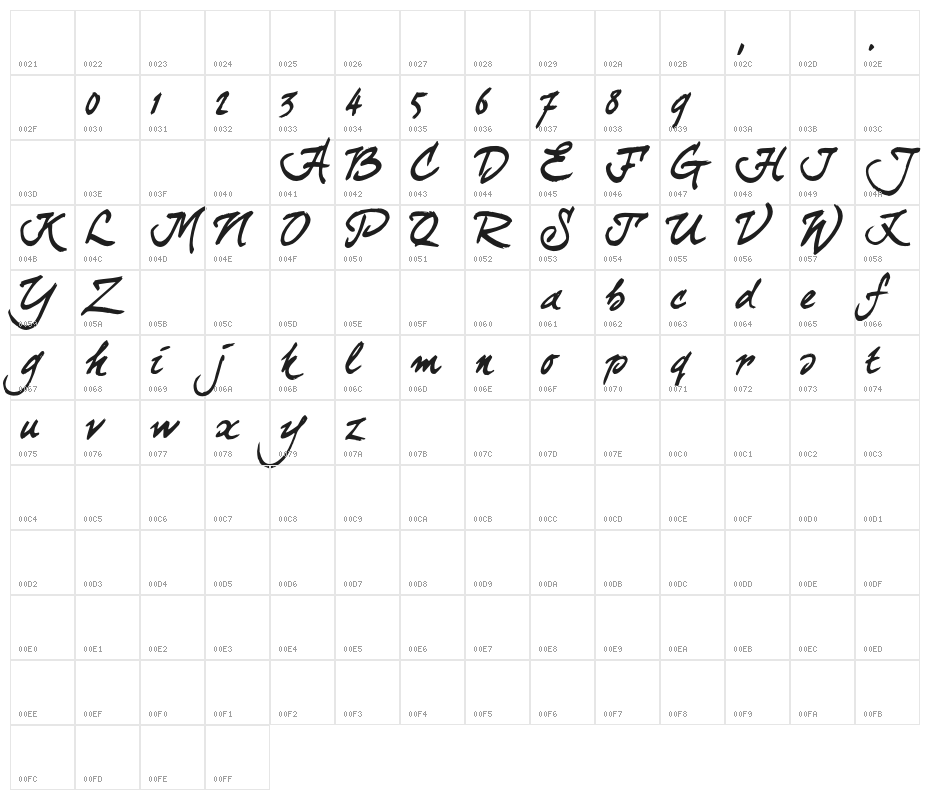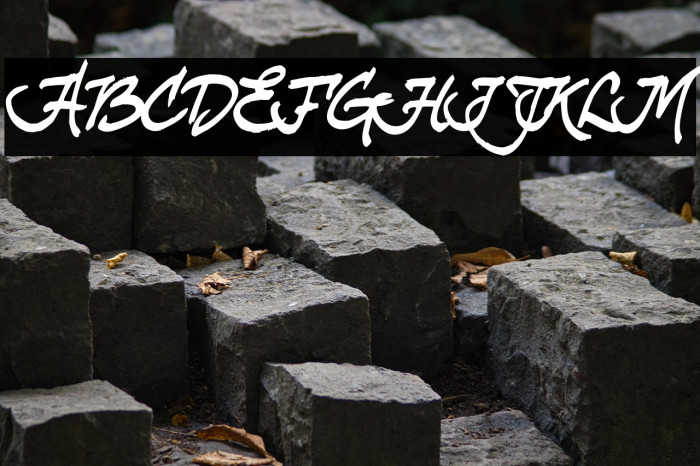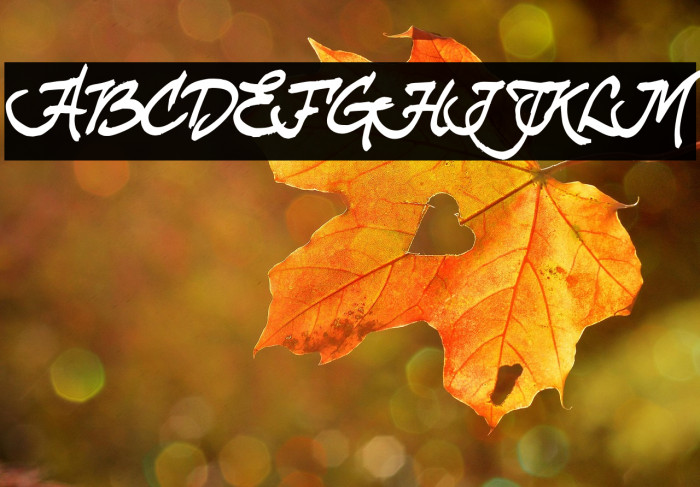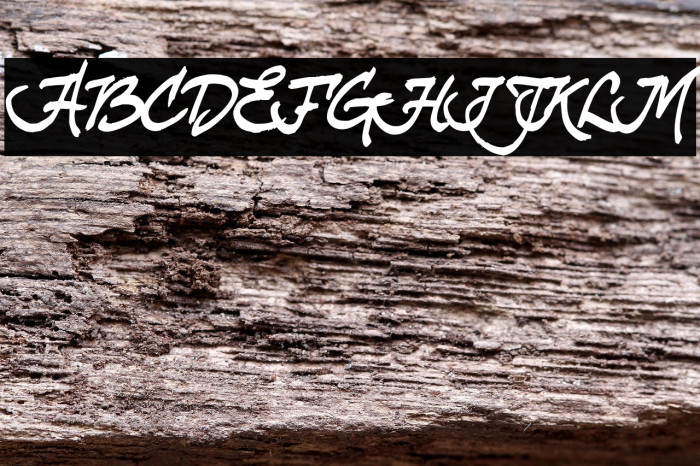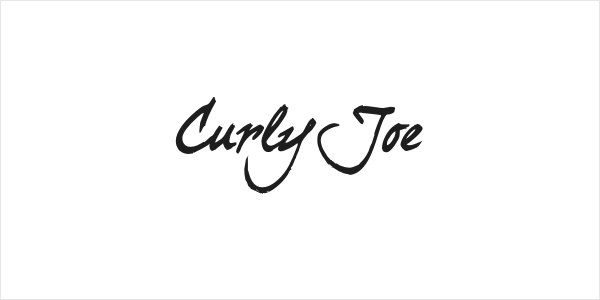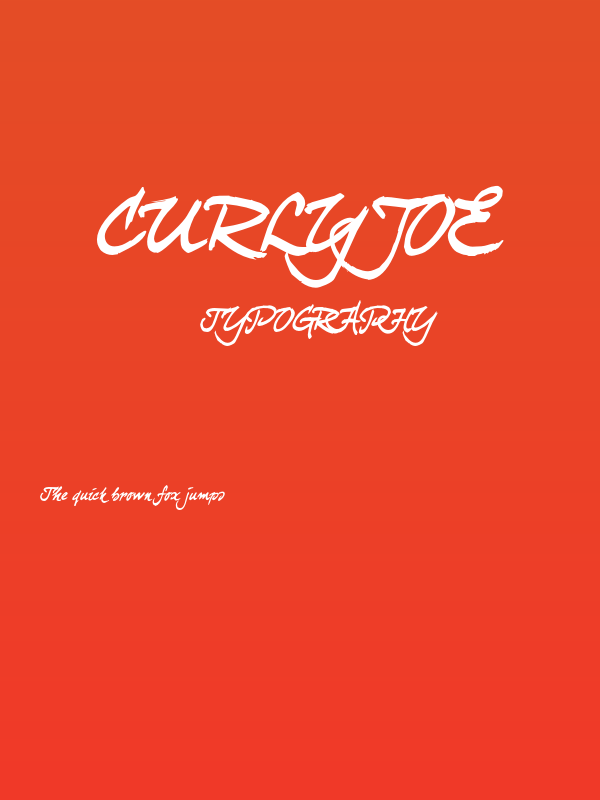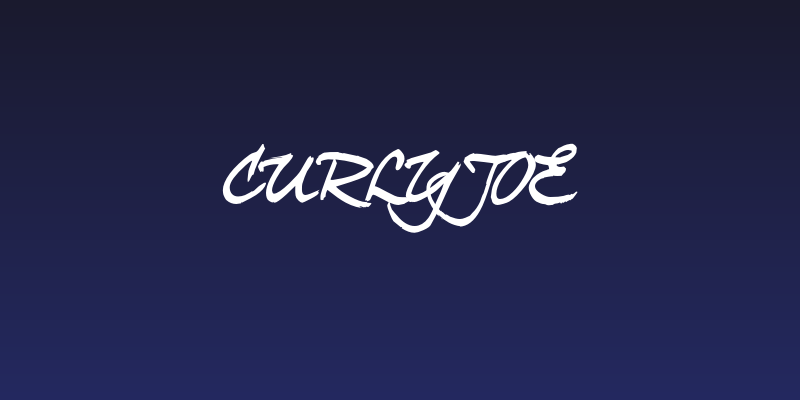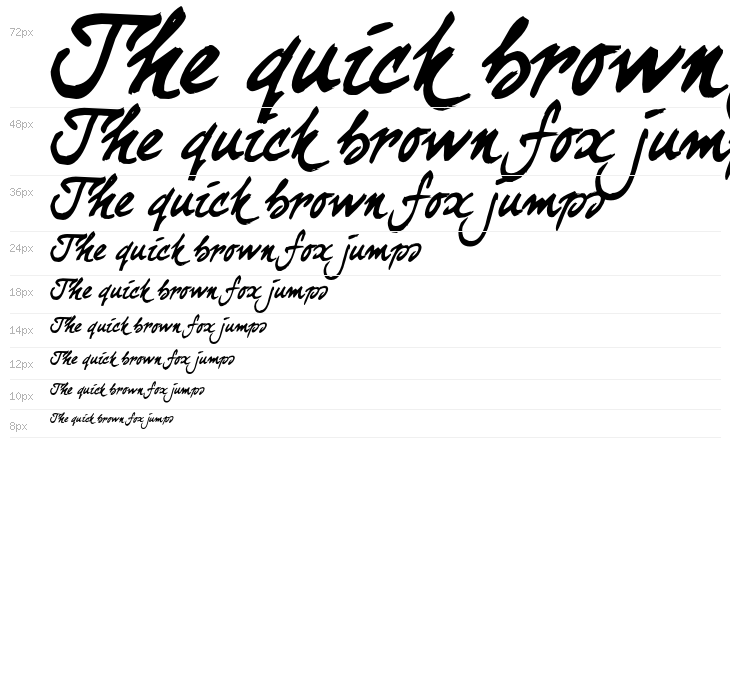
CurlyJoe Font
CurlyJoe Description
This font features a dynamic and expressive script style with a handwritten appearance. The characters are fluid and connected, showcasing a sense of movement and elegance. The uppercase letters are bold and prominent, while the lowercase letters maintain a consistent flow. The numerals are distinct and maintain the cursive style, adding to the overall cohesive look. Special characters are integrated seamlessly, enhancing the font's versatility. The strokes vary in thickness, providing a lively and artistic feel, making it suitable for creative and decorative applications.